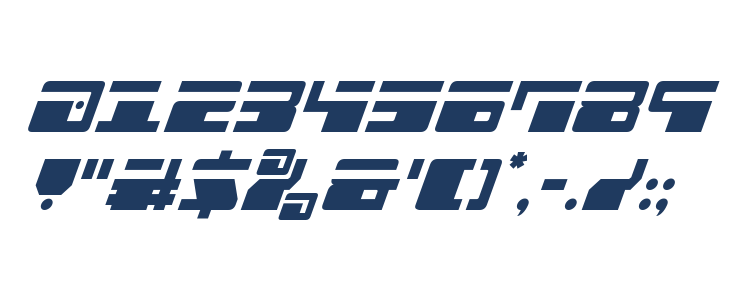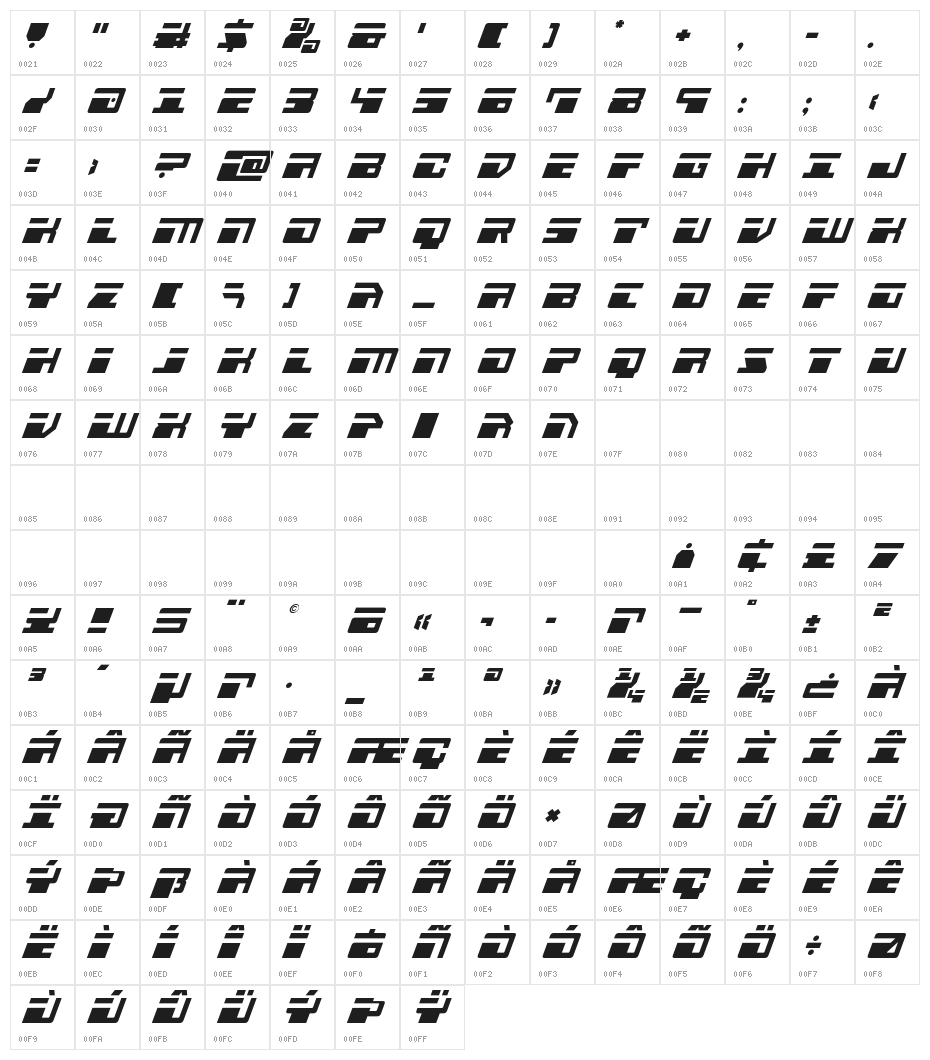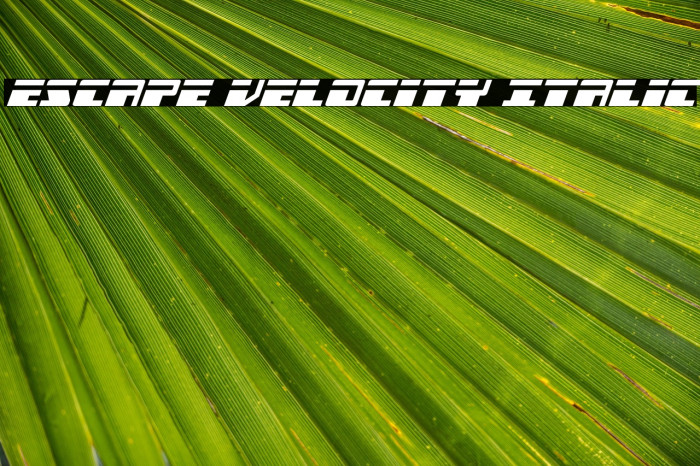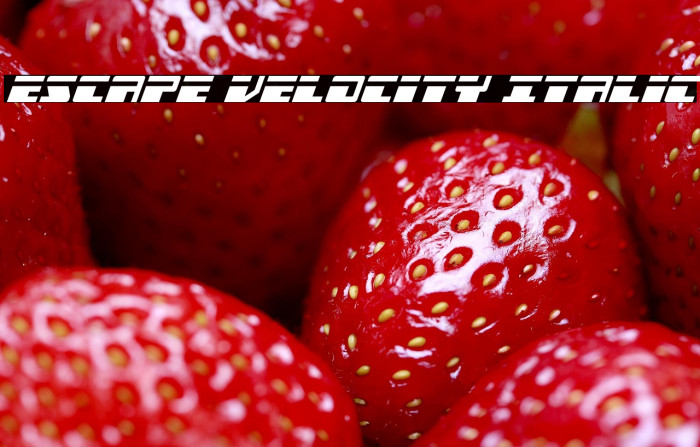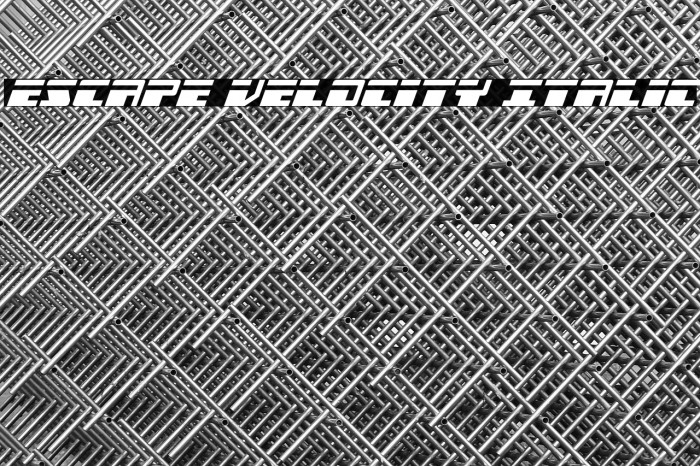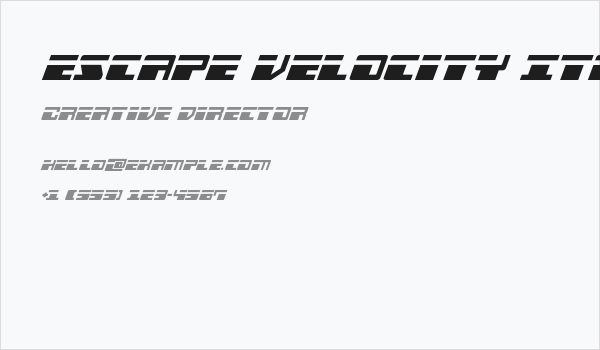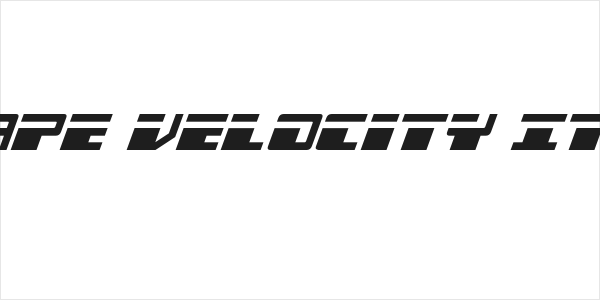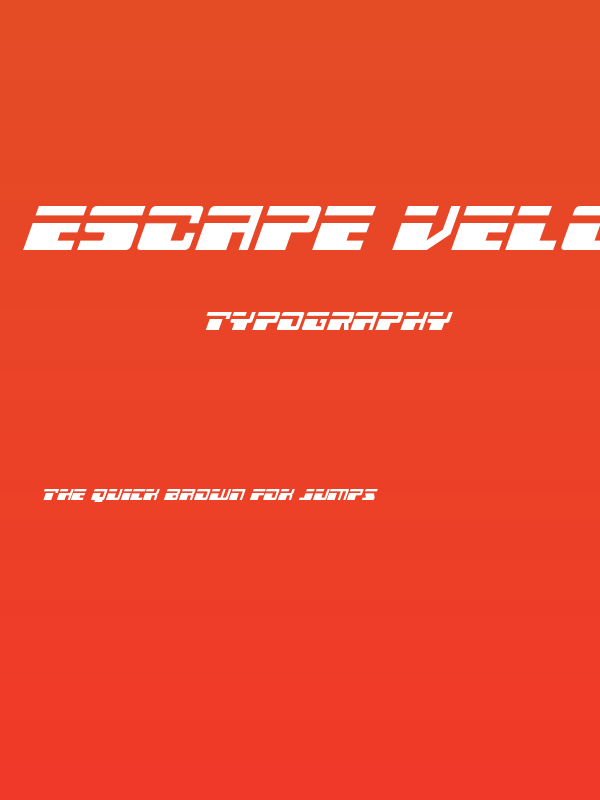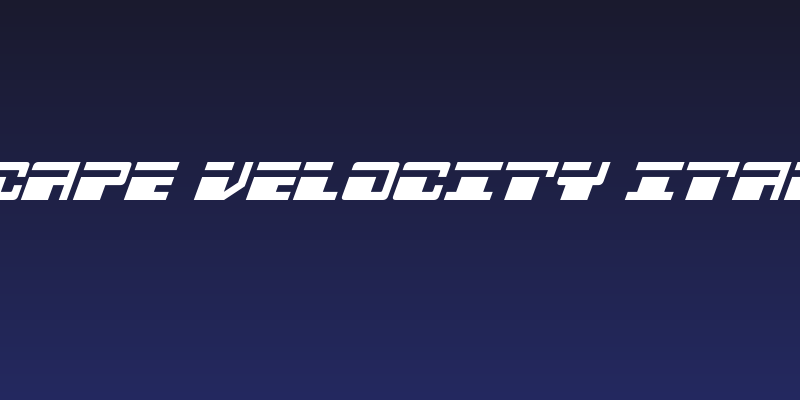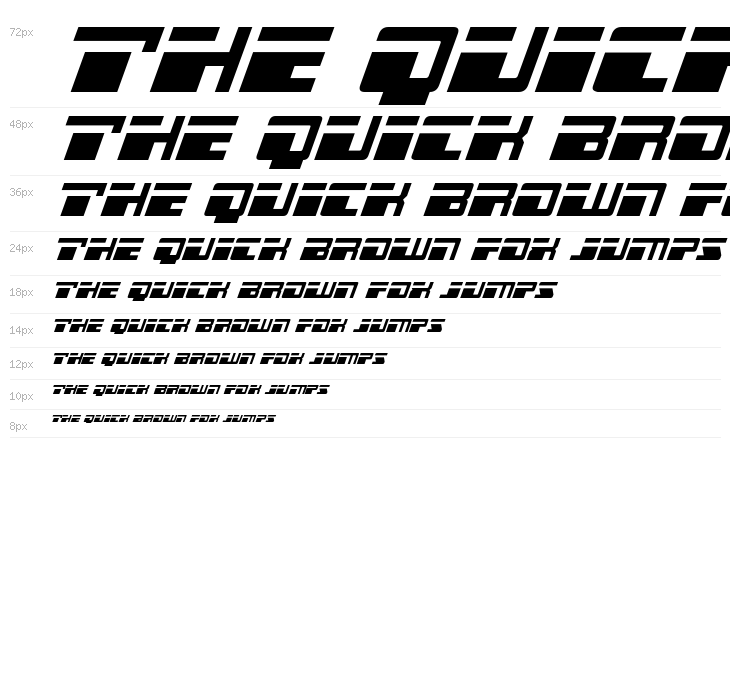
Escape Velocity Italic Font
Escape Velocity Italic Description
This font features a bold and futuristic design with a strong emphasis on angular shapes and sharp edges. The characters are italicized, adding a sense of motion and speed. The uppercase and lowercase letters maintain a consistent style, with a geometric structure that gives a modern and dynamic appearance. The numbers and special characters follow the same design principles, ensuring uniformity across all elements. This font is ideal for projects that require a cutting-edge and high-tech aesthetic.